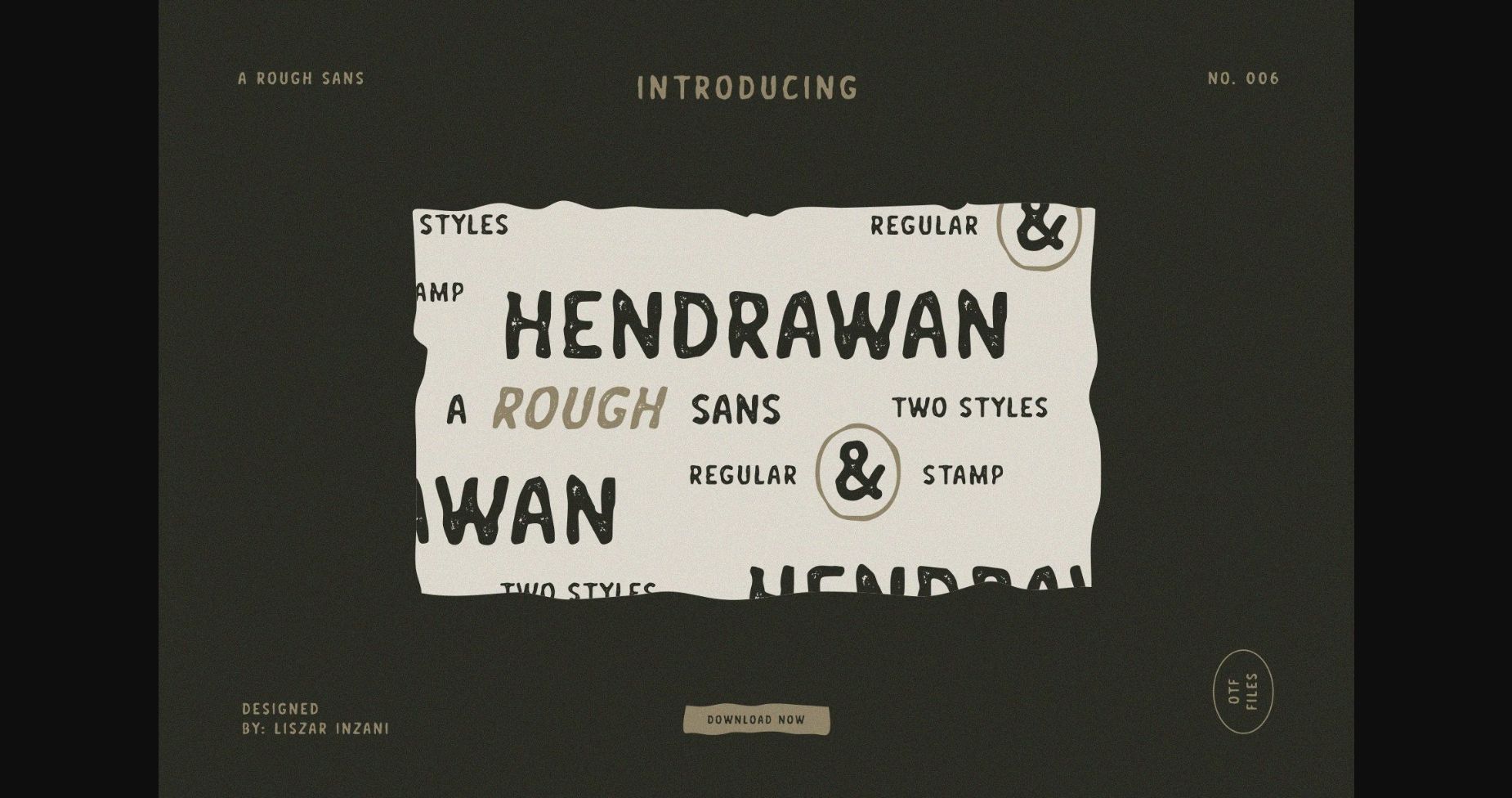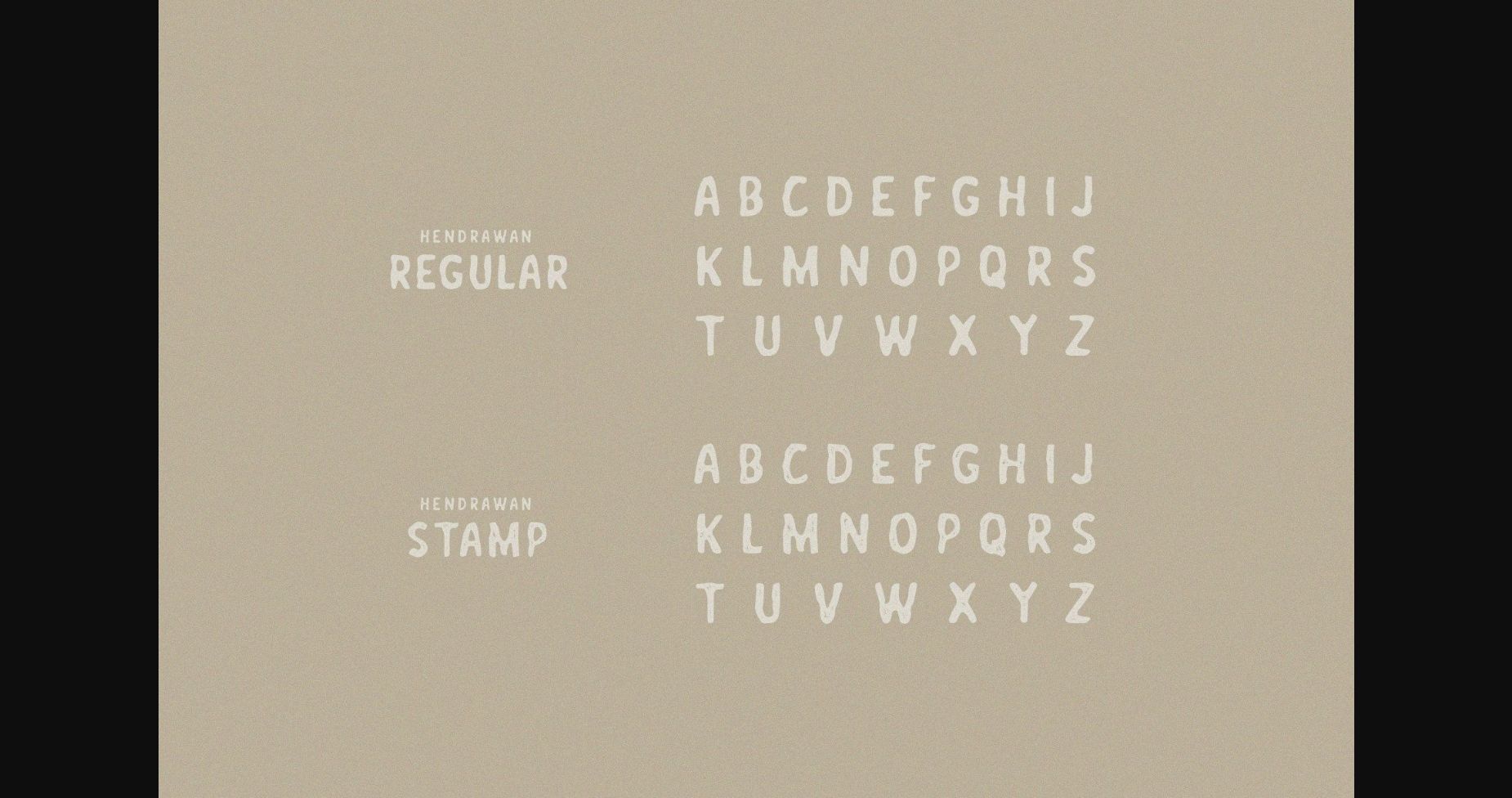
About Hendrawan Font
Hendrawan is an interesting rough-style sans serif font. Nostalgic and exquisite, this font delivers an incredible vintage aesthetic. Use this serif font to add that special retro touch to any design idea you can think of!